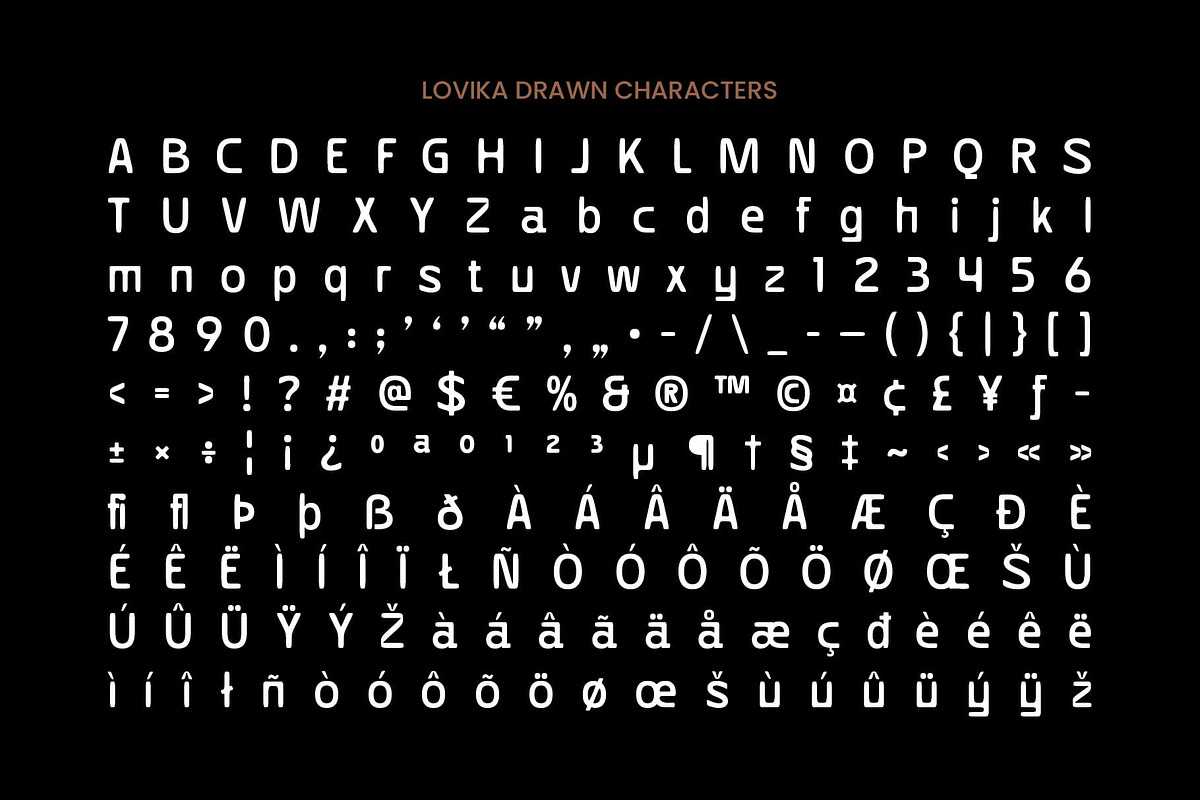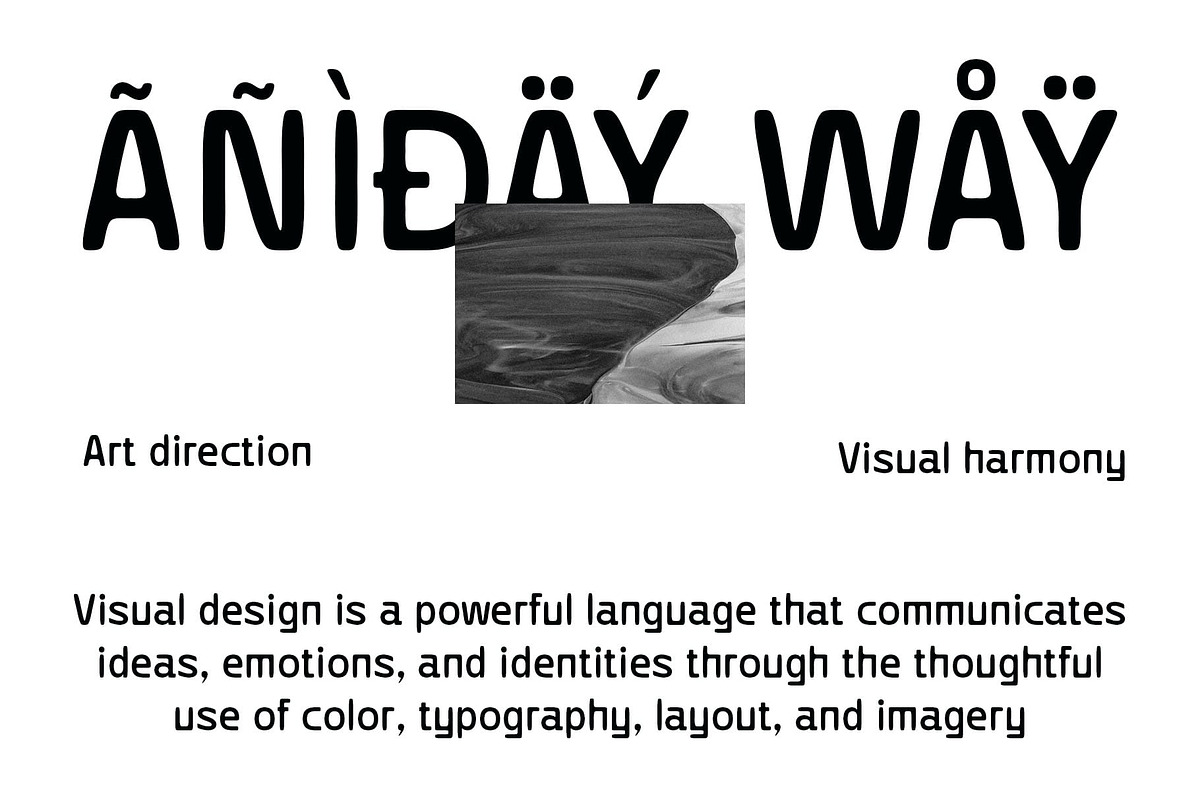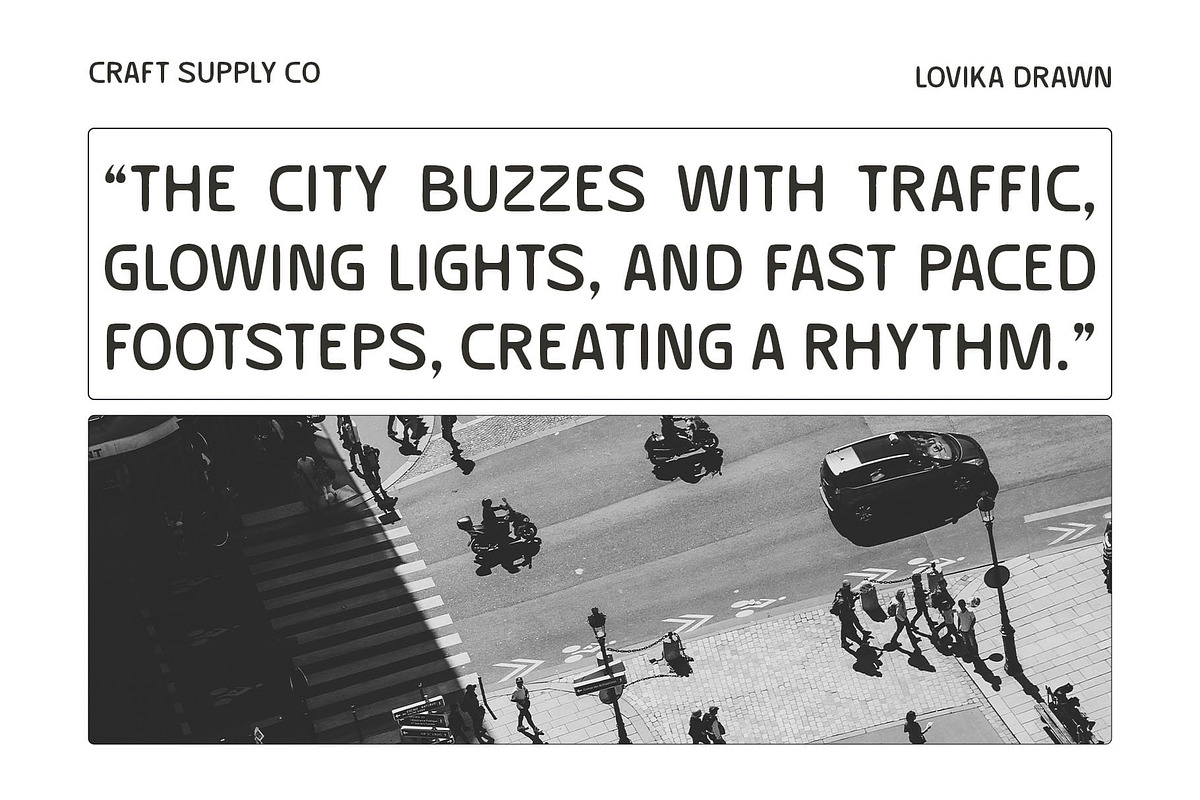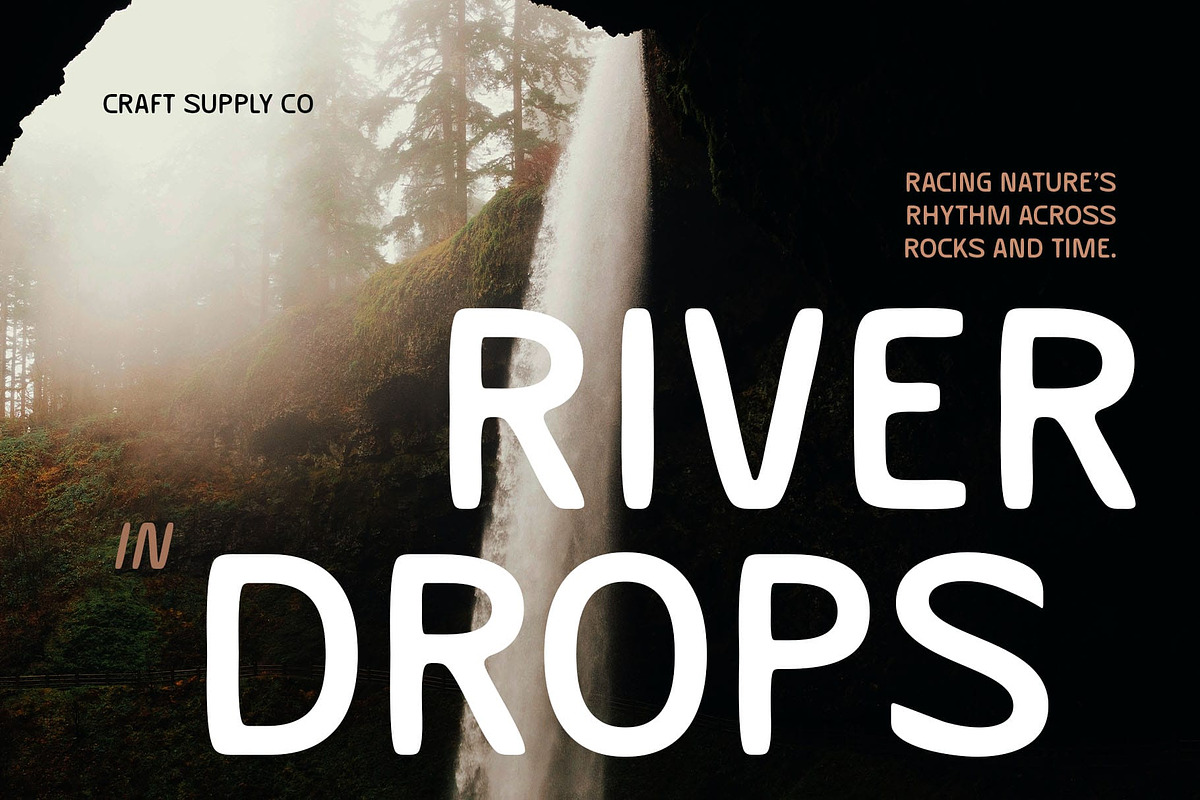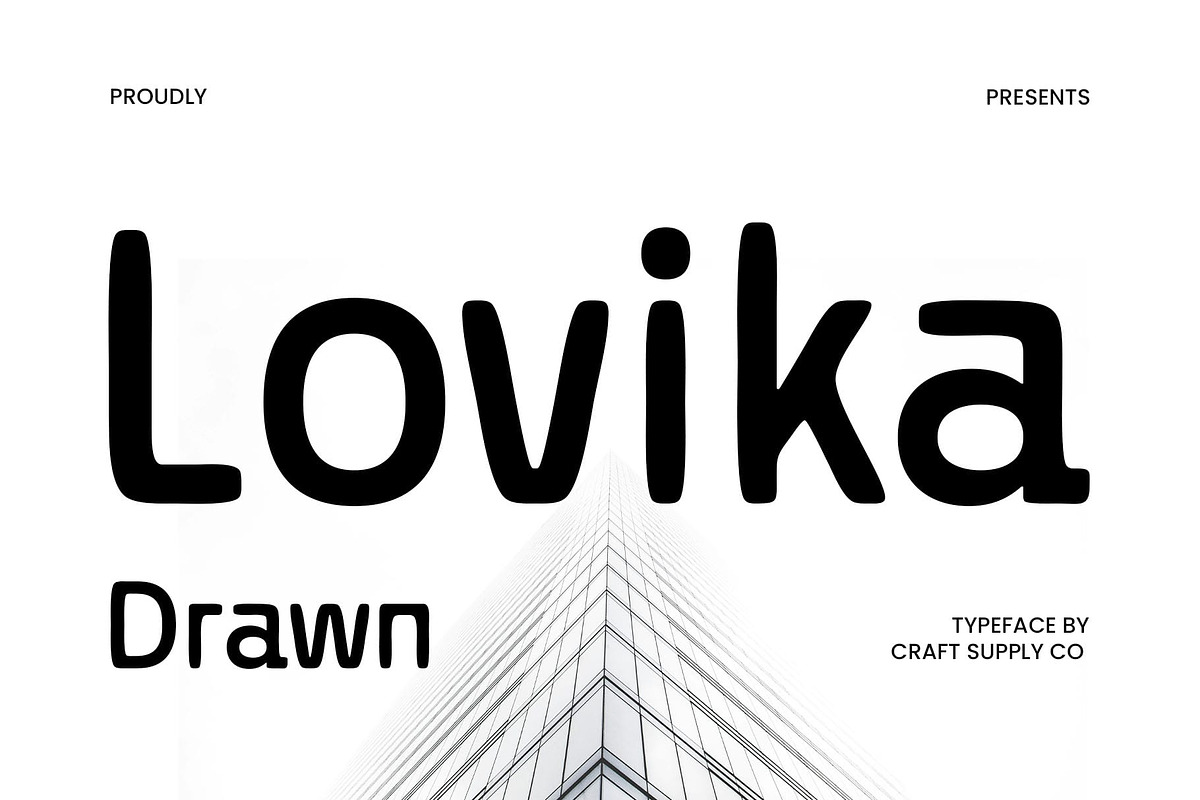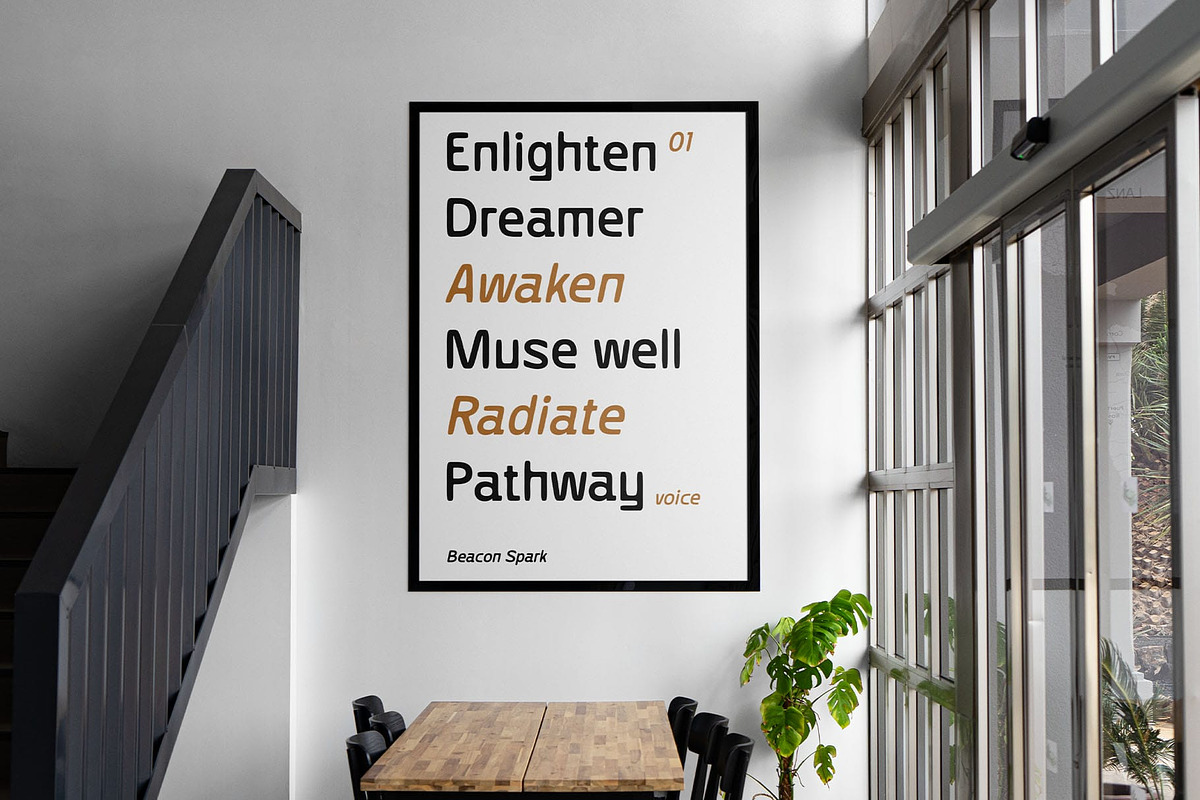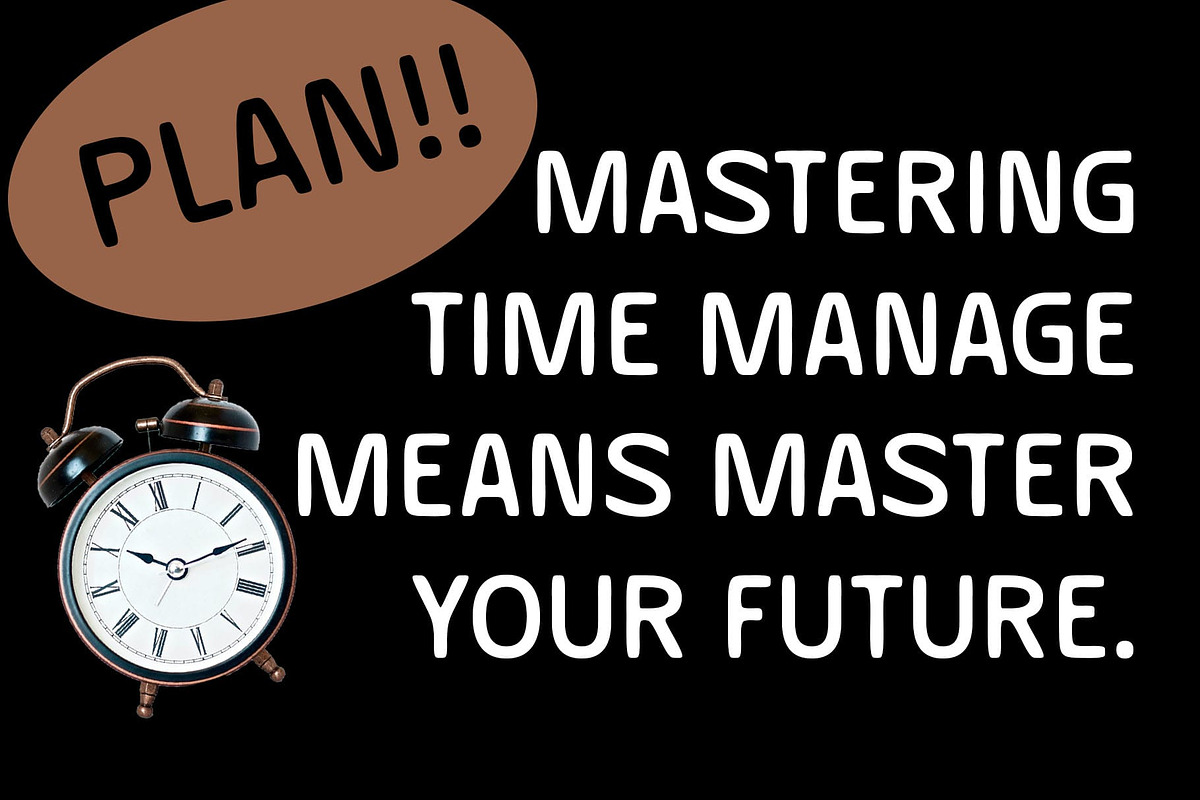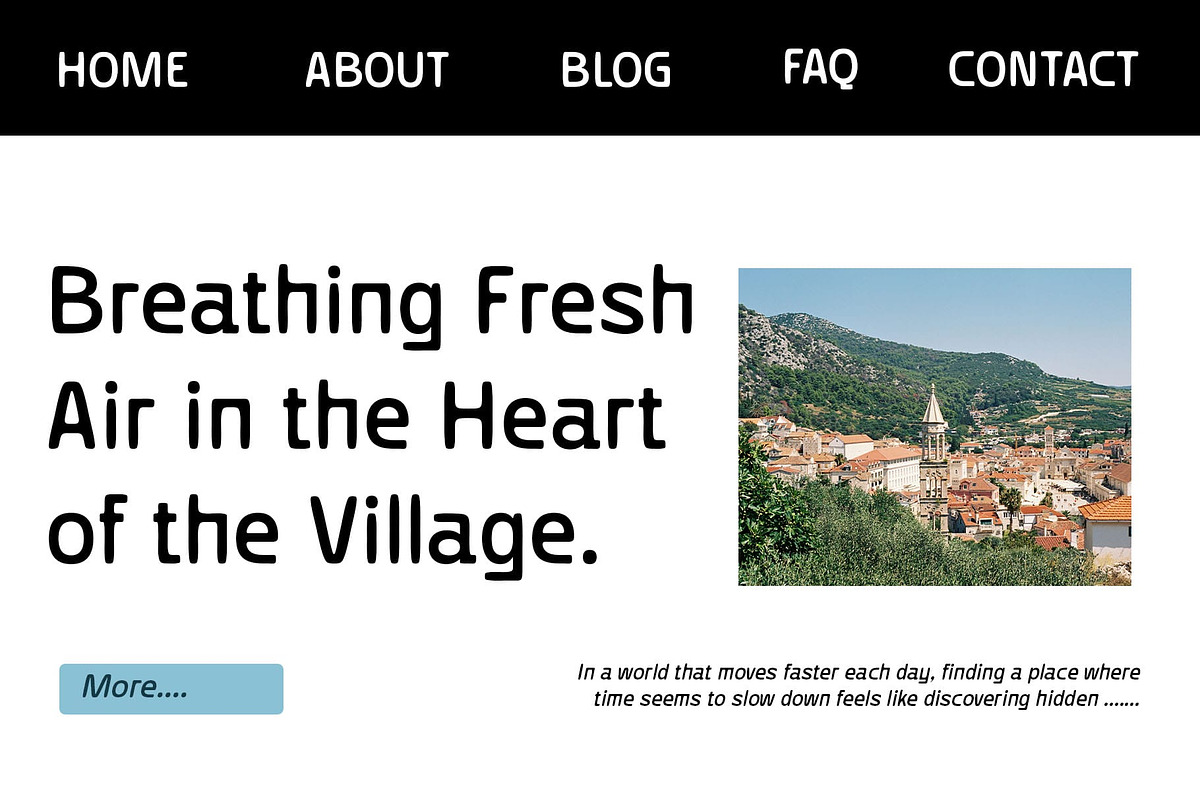
Lovika Drawn
Lovika Drawn Font: Modern Elegance with an Artistic Twist
Modern Sans-Serif with Geometric Precision Lovika Drawn is a modern sans-serif font that boasts clean, geometric shapes for a sharp and contemporary feel. Its carefully crafted letterforms present a sleek, minimalist appearance, making it ideal for designs that call for modern clarity.
Unique Drawn Effect for Creative Flair What sets Lovika Drawn apart is its distinct drawn effect, which adds a personalized and artistic flair. This subtle, yet impactful texture transforms the font from a clean geometric design into something uniquely expressive, making it stand out in creative projects that need that extra bit of personality.
Versatile for Diverse Design Applications Lovika Drawn is incredibly versatile, perfect for a wide range of creative applications, including branding, posters, and digital media. Its contemporary style provides a professional look, while the drawn effect brings an artistic element that keeps the design dynamic and engaging. Whether you’re creating modern corporate identities or expressive artwork, Lovika Drawn offers the ideal balance between clean lines and creative expression.
Perfect for Modern and Expressive Designs This font excels in projects where modern appeal meets artistic expression. Lovika Drawn is perfect for designs that need to strike a balance between sleek professionalism and creative individuality, making it ideal for posters, promotional materials, websites, and brand identities that want to make a memorable impact.
- Lovika Drawn Regular
- Lovika Drawn Italic